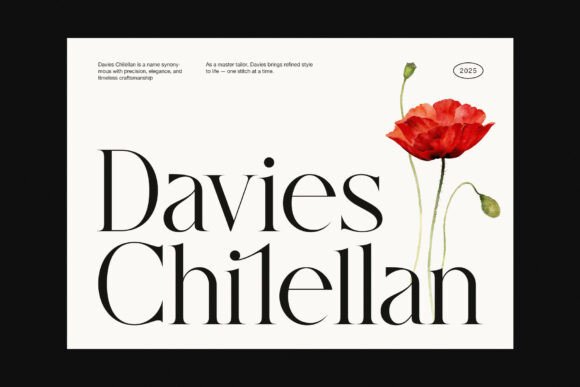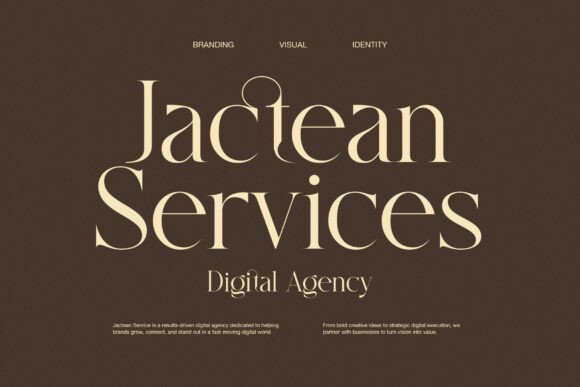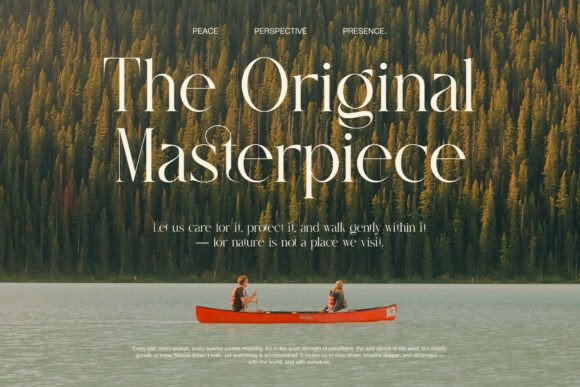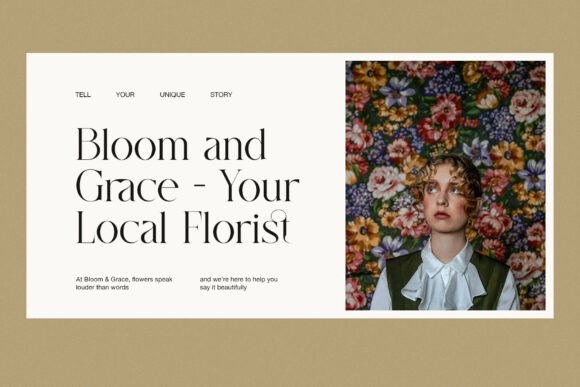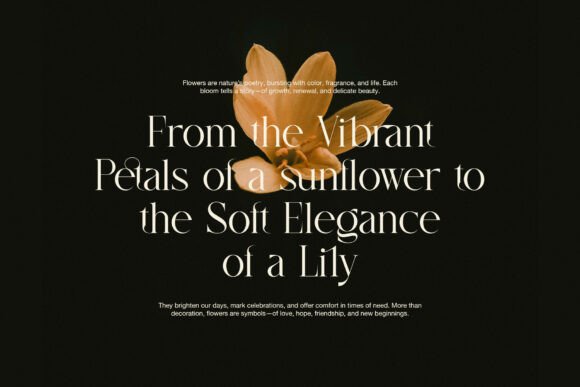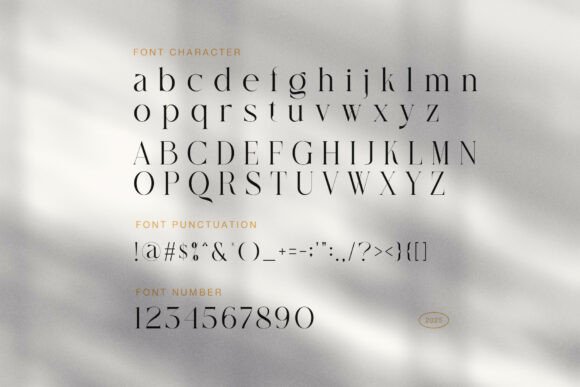
Discover the Elegance of Galista Font: A Luxury Serif Typeface
A Closer Look at Galista Font
Galista font is a masterclass in modern elegance and sophistication. Its extreme contrast between thick and thin strokes, along with unique, sharp serifs, gives it a distinct “vogue” aesthetic. This font is perfectly suited for luxury branding, perfume packaging, and high-end magazine spreads. The Galista typeface includes stunning ligatures and stylistic alternates that allow you to create custom-looking logos with just a few keystrokes.
What I Love About Galista Font
- ✨ Extreme contrast between thick and thin strokes for a luxurious feel
- ✅ Unique, sharp serifs that add a touch of sophistication
- 💫 Stunning ligatures and stylistic alternates for custom logos
- 📸 Pairs wonderfully with minimalist photography and ample white space
While Galista font is a stunning addition to any design project, there are a few quirks to be aware of:
- 🤔 Some users may find the font’s extreme contrast challenging to work with in certain contexts
- ⚠️ The font’s unique serifs may not be suitable for body text or long-form content
The Story Behind Galista Font
Galista font was designed with the goal of creating a luxurious, high-end serif typeface that would evoke the essence of fashion and elegance. Inspired by the world of haute couture, Galista’s unique serifs and extreme contrast between thick and thin strokes make it the perfect choice for designers looking to add a touch of sophistication to their projects.
| Font Name | Galista Font |
| Author | Graphicxell |
| What is Galista font best suited for? | Galista font is perfect for luxury branding, perfume packaging, and high-end magazine spreads. |
| Does Galista font include ligatures and stylistic alternates? | Yes, Galista font includes stunning ligatures and stylistic alternates that allow you to create custom-looking logos with just a few keystrokes. |